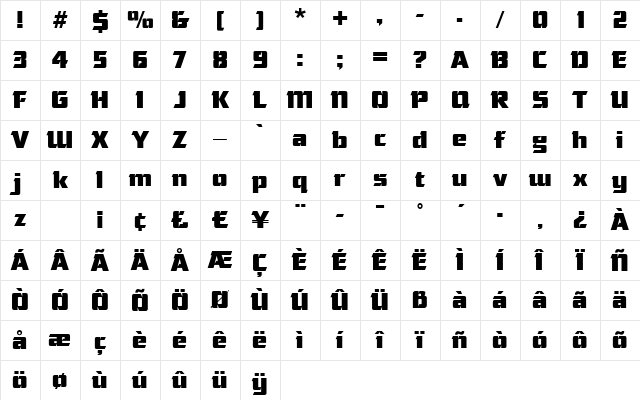
AndreaBecker Regular
Design Context for AndreaBecker
AndreaBecker is a composed and adaptable typeface that performs quietly and consistently across a wide range of design contexts.